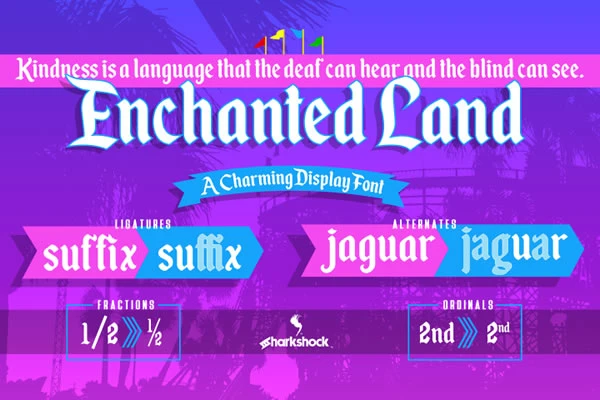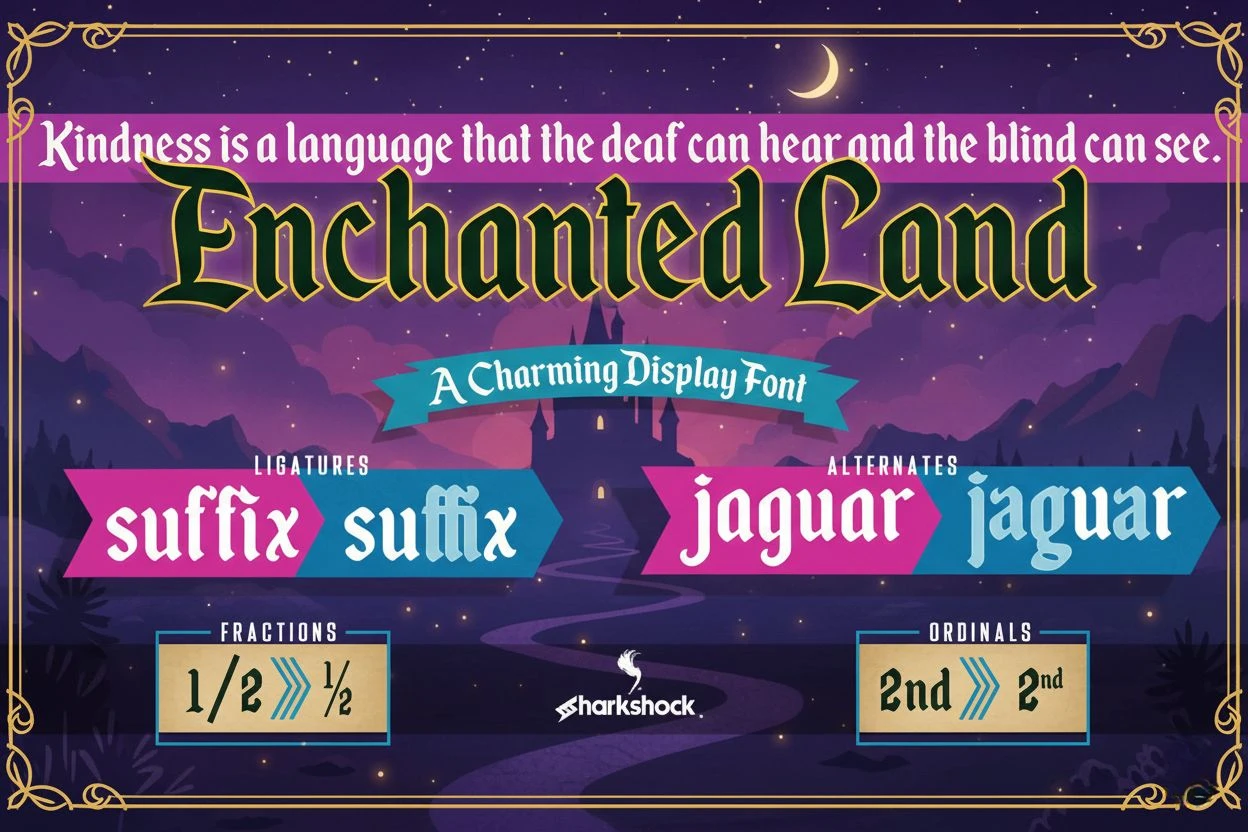
Enchanted Land is a magical and charming display font inspired by fairytales, fantasy worlds, and storybook lettering. Its whimsical curves, elegant medieval vibes, and playful details make it perfect for creative projects that need a touch of enchantment and imagination.
This fantasy-style typeface works beautifully for logos, headings, invitations, posters, T-shirt designs, greeting cards, children’s books, labels, packaging, branding, and themed event graphics. With unique ligatures, alternates, fractions, and ordinals, Enchanted Land gives you flexibility to craft expressive and visually captivating typography.
Ideal for fairy-tale designs, magical branding, fantasy titles, book covers, whimsical quotes, and enchanted decor, this font brings a sense of wonder to every project. Whether you’re designing for print, digital art, Cricut, or social media, Enchanted Land delivers a storybook charm that makes your work stand out.